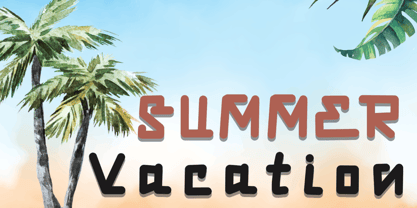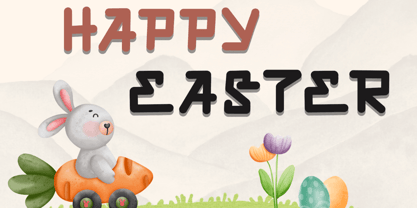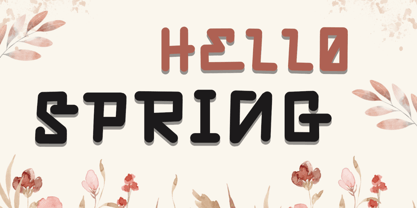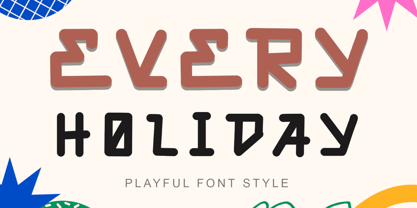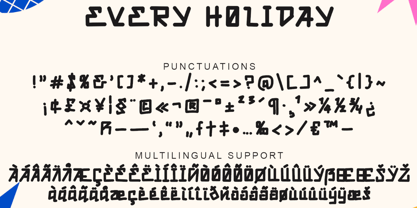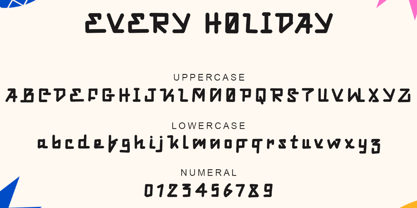
Every Holiday
by Yoga Letter
The Every Holiday Font Family was designed by Isroni Yoga Prasetya and published by Yoga Letter. Every Holiday contains 1 styles. More about this family
"Every Holiday" is a unique and elegant display font. This font is equipped with uppercase, lowercase, numerals, punctuations and multilingual support. It is very suitable for use for easter, summer, spring, sticker, banner, poster, print, branding, logo, vacation, invitations and others.
Designers: Isroni Yoga Prasetya
Foundry: Yoga Letter